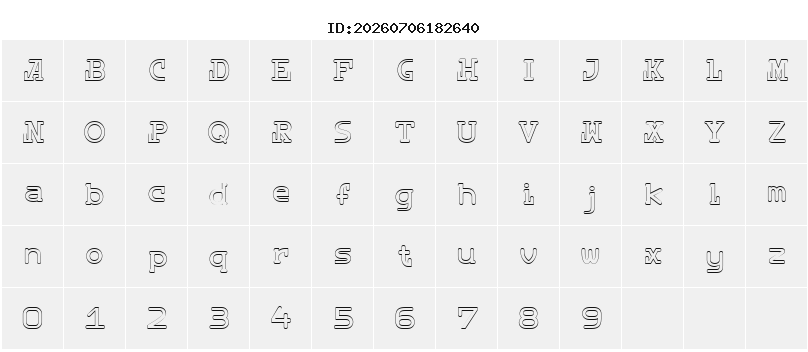
About Destiny_Light.ttf
Destiny_Light.ttf is a modern, elegant sans-serif font designed for ultimate readability and visual harmony. Perfect for branding, headlines, web design, and print materials.